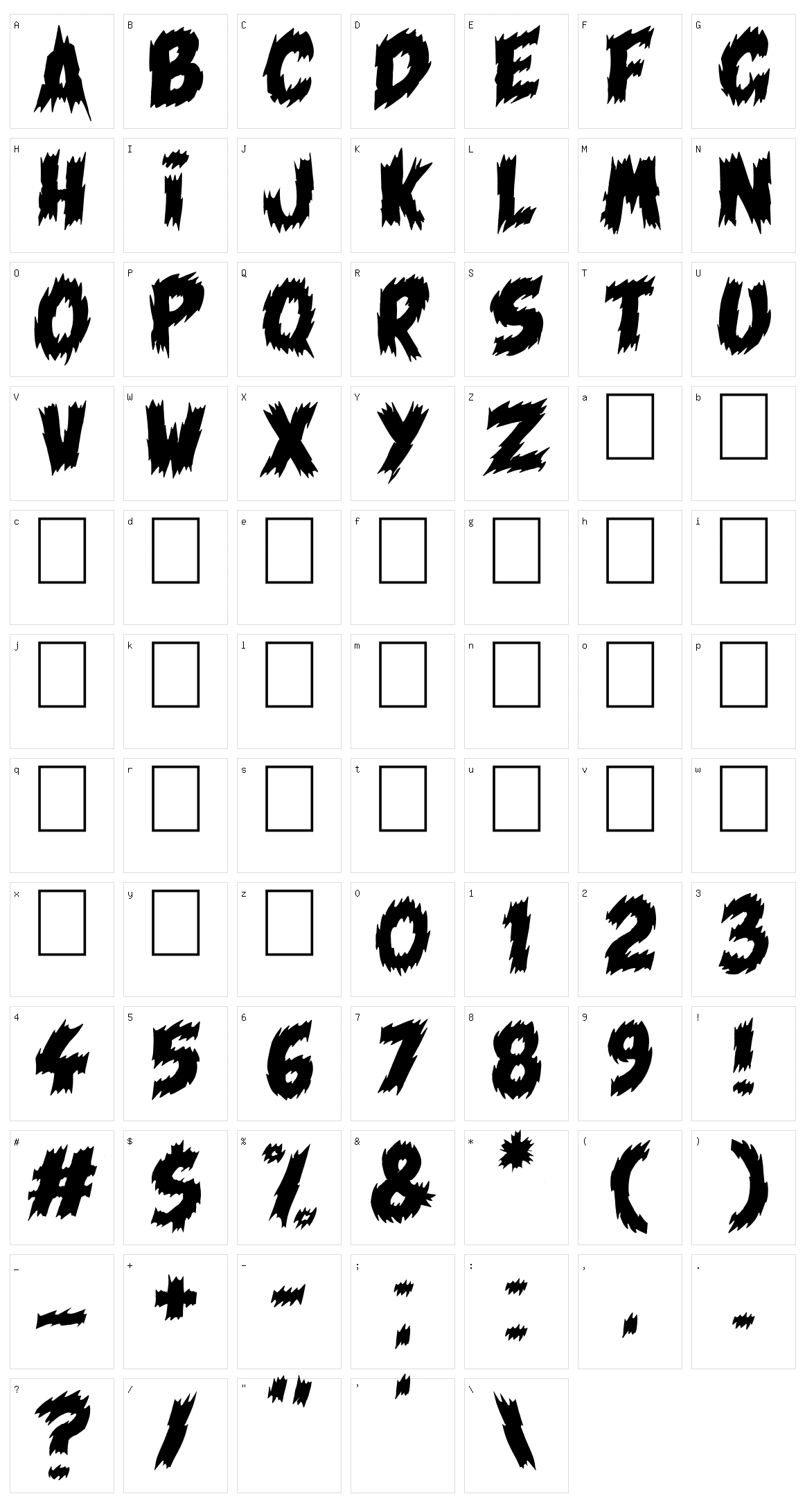
The free font Tales of Scare Black is carefully designed by imagex, showcasing a thoughtful balance of creativity and usability and falls under the Horror font style. When you download the ZIP file, it contains only 39.74 KB of font files, making it lightweight and quick to download. Please review the license details below to understand permitted usage and distribution rights. If license information is not available, we recommend using this font for personal projects only or contacting the author directly for commercial usage permissions.